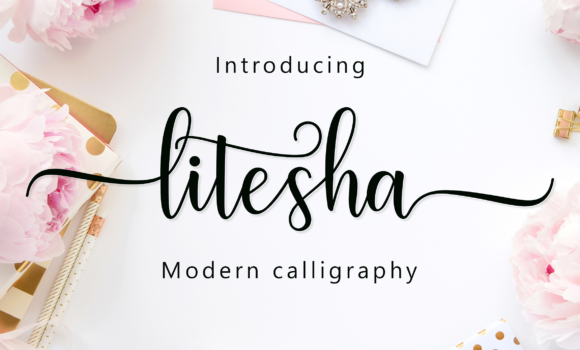
Litesha Script Font – Free Download Introduction to Litesha Script Font Litesha Script is a stunning hand-made script font that comes packed with a large range of stunning alternates. 📸 Preview Gallery 4 images 📌 Product Name Litesha Script Font